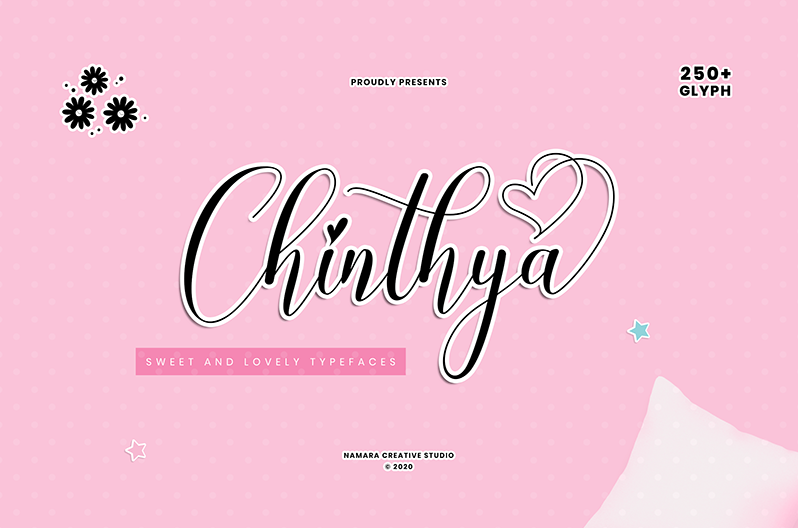
Font name: | Chinthya |
Author: | Namara Creative Studio |
Chinthya is sweet and lovely calligraphy fonts in cute and beautiful elegant styles. decorative characters and handlettering effect make this font looks so naturally. Included OpenType features : alternates, ligatures and multilingual support. By installing or using this font, you are agree to the Product Usage Agreement: - This font is PERSONAL USE ONLY. NO COMMERCIAL USE ALLOWED! - Link to purchase commercial license https://onedsgn.com/product/chinthya/ - Any donation are very appreciated. Paypal link for donation : paypal.me/namaracreativestudio |